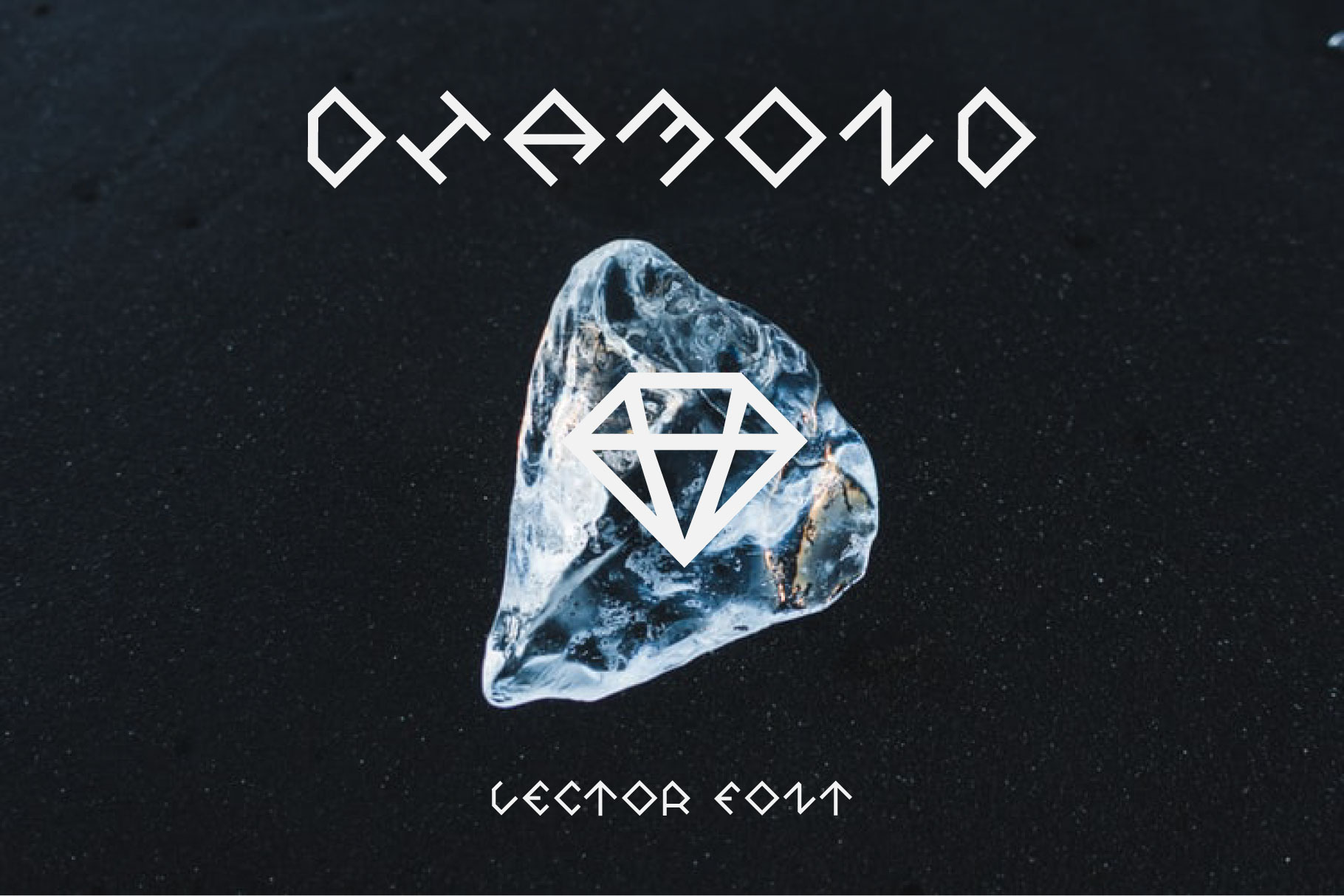
Vector Font. Diamond
Diamond – only vector decorative alphabet. The inspiration is based on the diamond with its strict shapes, straight lines and depth of structure. An excellent option for decorating your design.